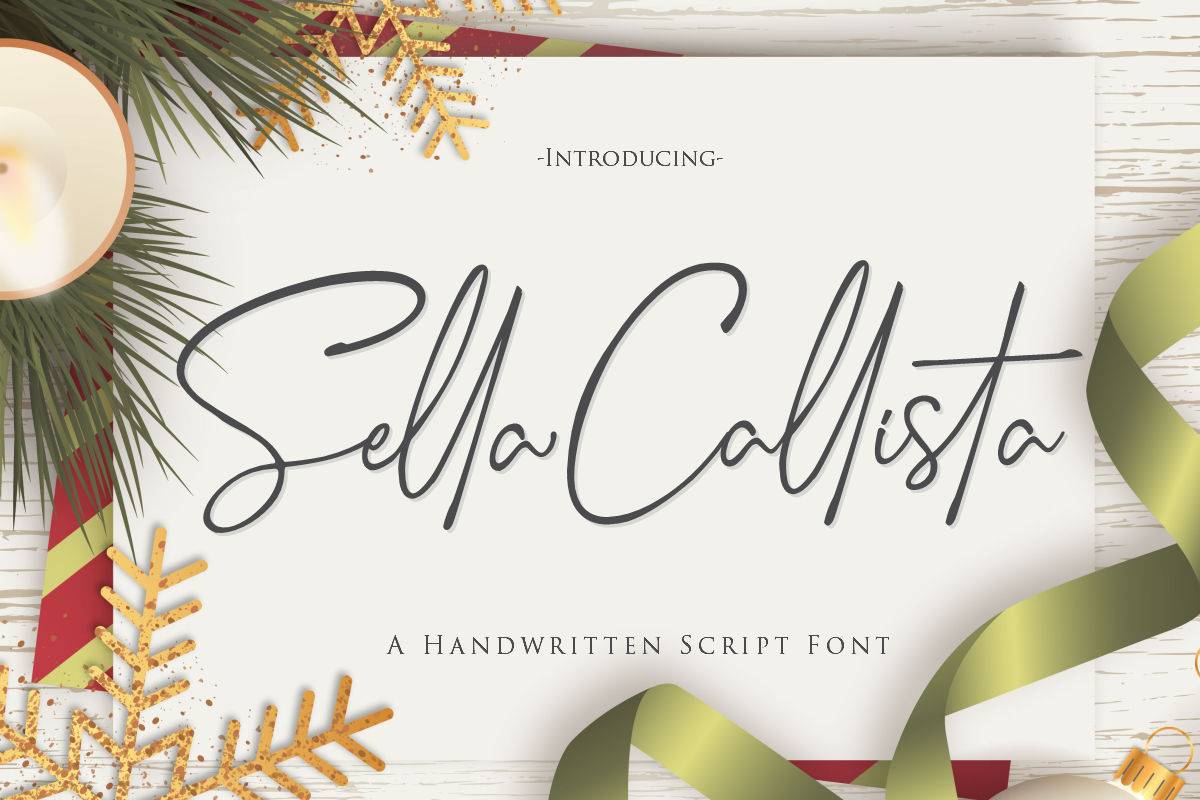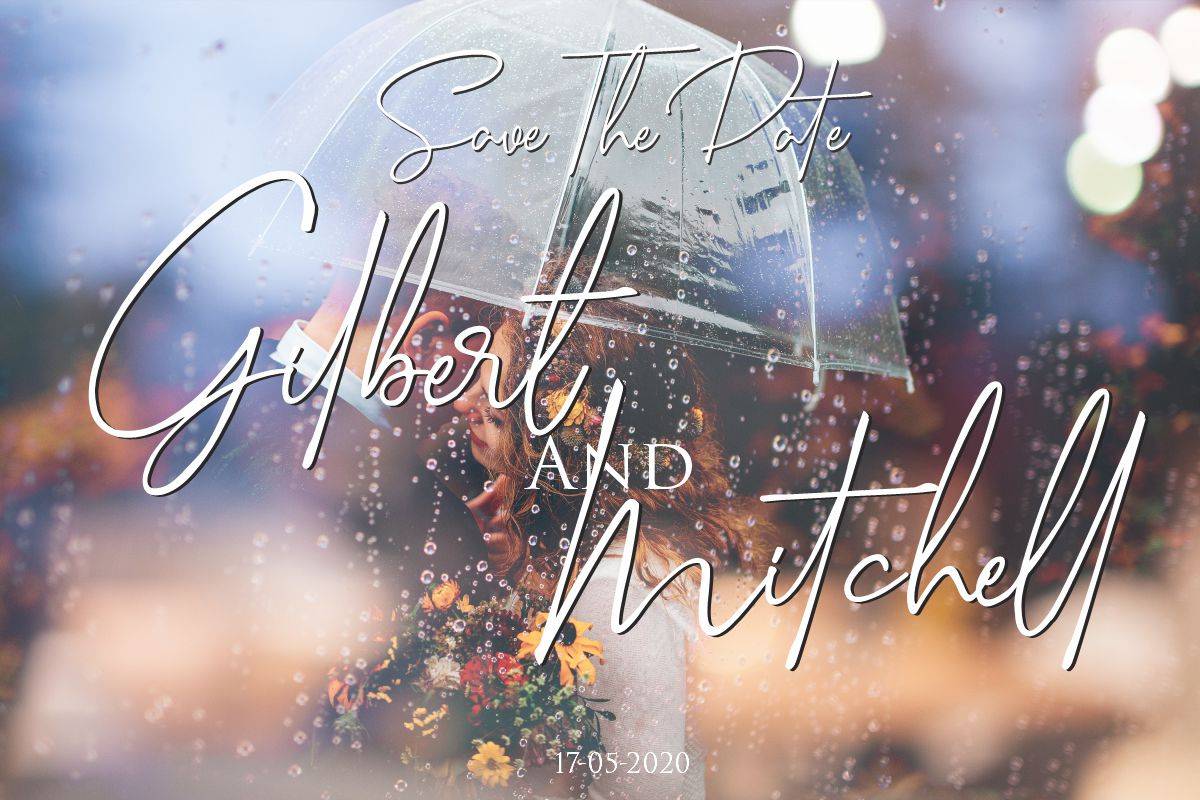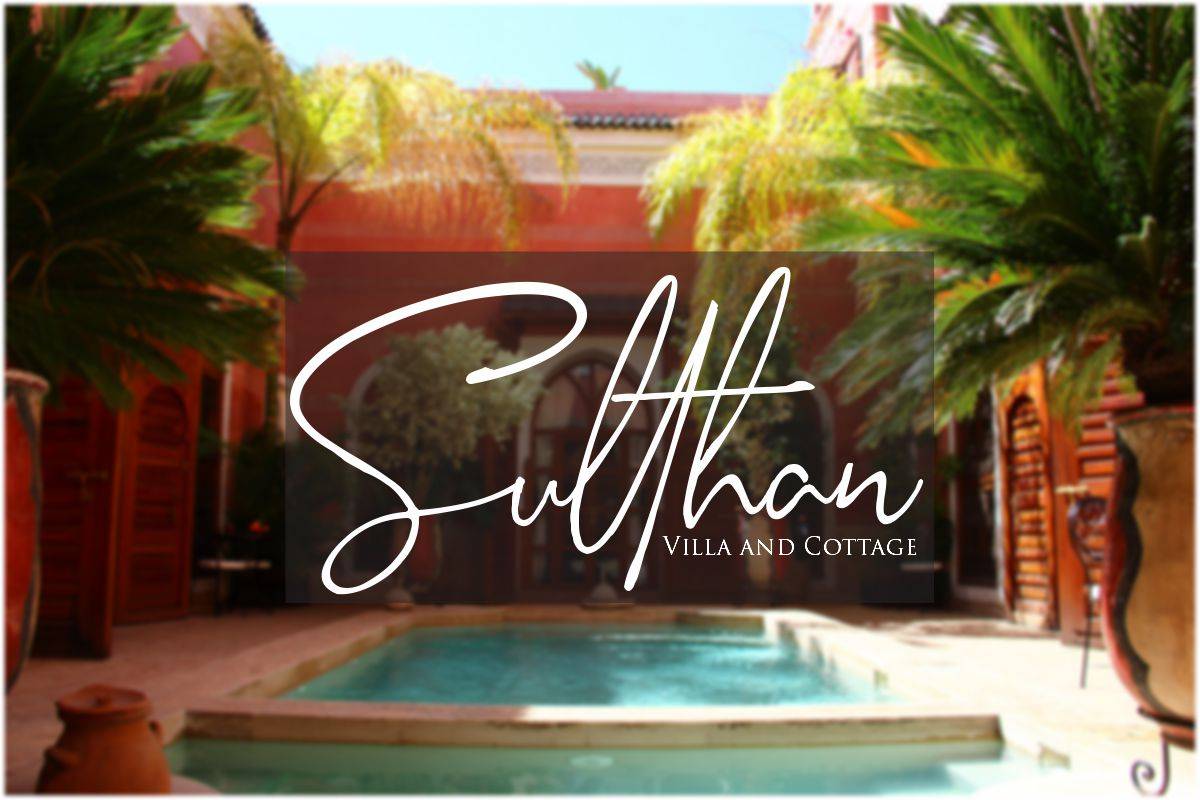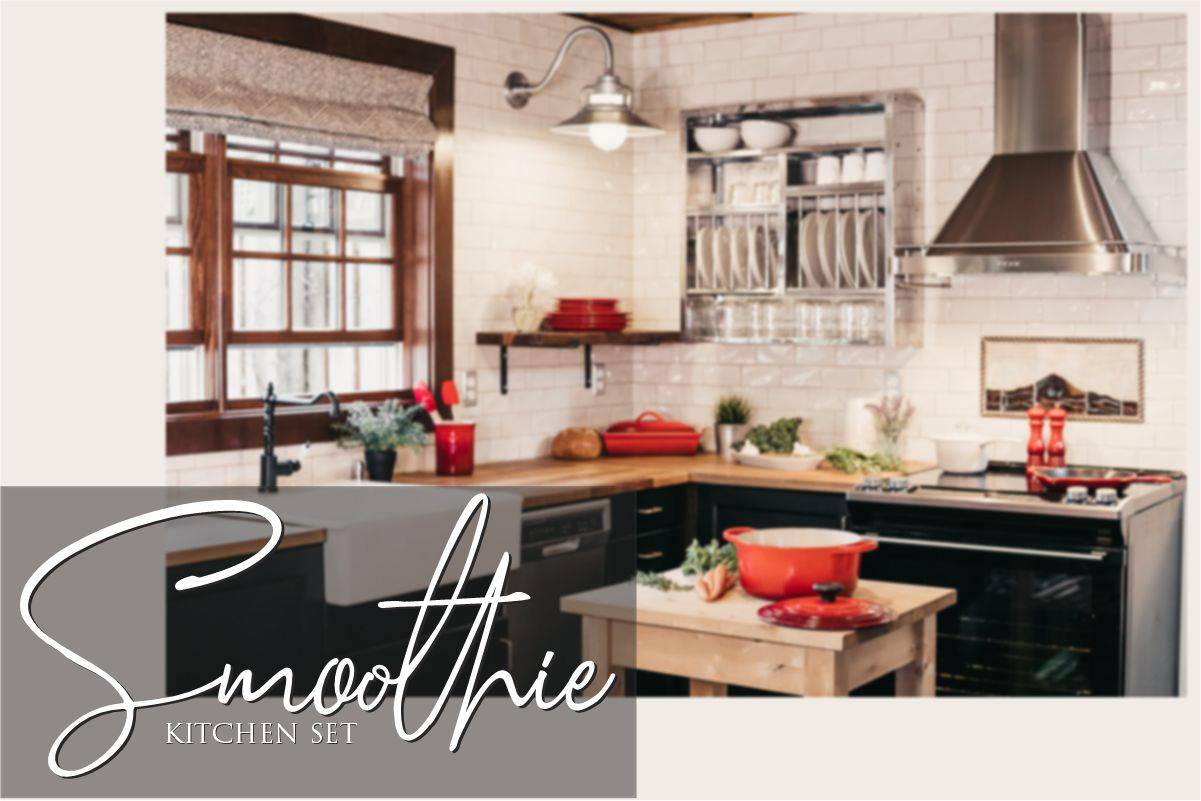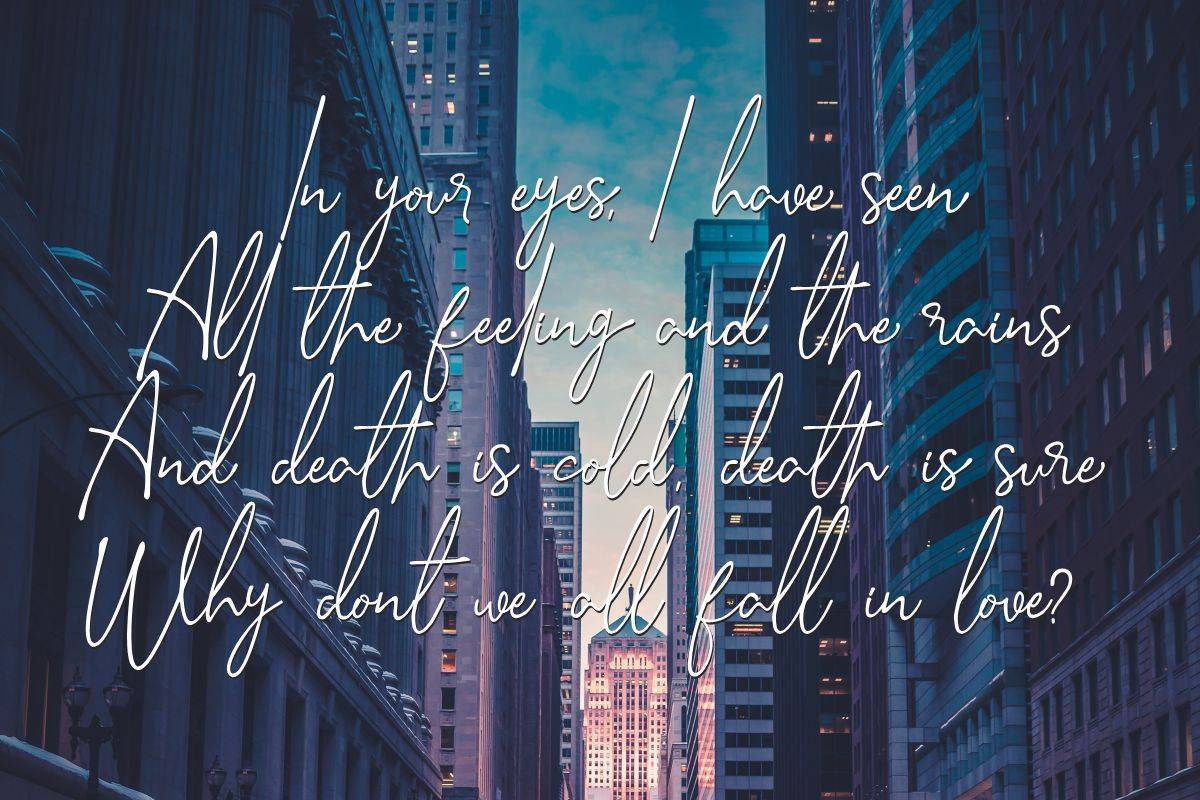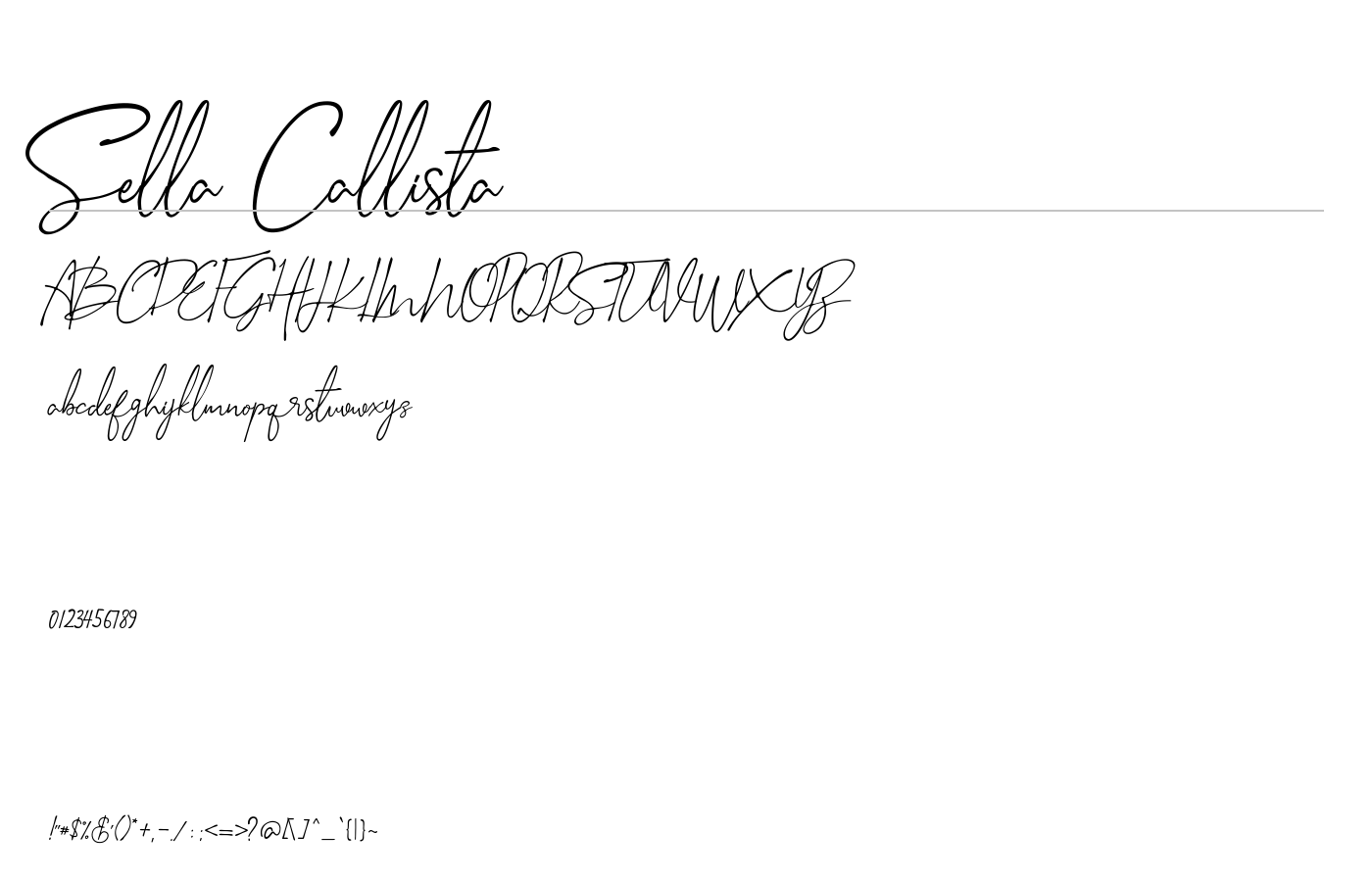
Sella Callista is a delicate, modern script font characterized by its elegant, flowing lines and slender, airy letterforms that evoke a sense of handwritten sophistication. Its thin strokes and high contrast create a refined and graceful style, making it perfect for luxury branding, wedding invitations, and creative projects that seek a personal, artistic touch. This font’s stylish and expressive personality suits logos, headlines, and decorative text where a chic and contemporary feel is desired.
Sella Callista Font
About Sella Callista Font
| Font family | Sella Callista Font |
| Designer | Gilart Studio 2019 |